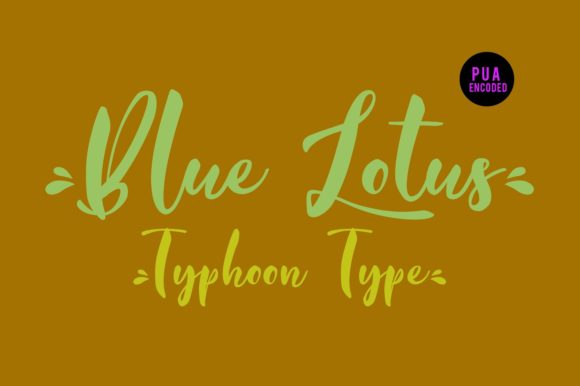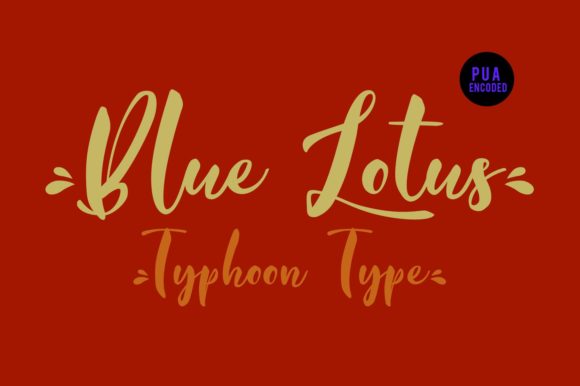
The Elusive Font: A Designer’s Journey with Blue Lotus
I still remember the project like it was yesterday. I was working on a branding campaign for a luxury spa, and my client specifically asked for a font that exuded elegance and sophistication. I scoured the internet, tried out countless fonts, but nothing seemed quite right. That was until I stumbled upon Blue Lotus – a chic, refined script font that instantly caught my attention. In this article, I’ll share my experience with Blue Lotus, its features, and how to make the most of it in your designs.
First Impressions: A Review of Blue Lotus
What I Love About Blue Lotus ✨
- 💫 Elegant and sophisticated design, perfect for luxury brands
- 🔍 Stylish alternates and ligatures that add a touch of uniqueness to any project
- 🎨 Highly versatile, suitable for a wide range of design applications, from logos to invitations
- 👍 Well-crafted, with attention to detail and a clear understanding of typography principles
While Blue Lotus is an excellent font, it’s not without its limitations. Here are a few things to keep in mind:
- 🤔 Some users may find the font a bit too ornate for certain projects, such as body text or very casual designs
- ⚠️ As with any script font, it may not be the best choice for very small font sizes or low-resolution displays
The Story Behind Blue Lotus
Blue Lotus was designed by a team of typographers who wanted to create a font that embodied the essence of luxury and sophistication. Inspired by traditional calligraphy and modern design principles, Blue Lotus is a true masterpiece of typography. The design team spent countless hours perfecting the font, ensuring that every detail, from the letterforms to the ligatures, was meticulously crafted to create a truly unique and elegant font.
| Font Name | Blue Lotus Font |
| Author | Typhoon Type™ – Suthi Srisopha |
Q: Is Blue Lotus suitable for body text?
A: While Blue Lotus is a beautiful font, it’s primarily designed for display purposes. It’s not recommended for body text, as it may be too ornate and difficult to read in large blocks of text.